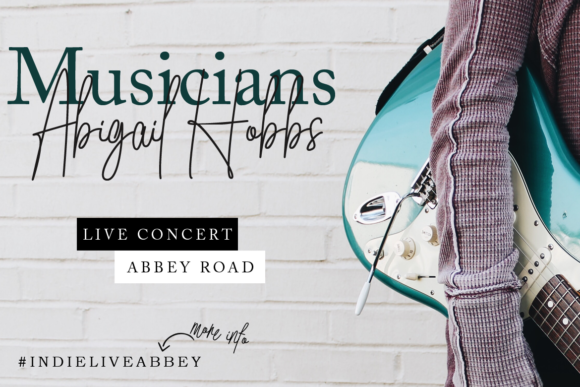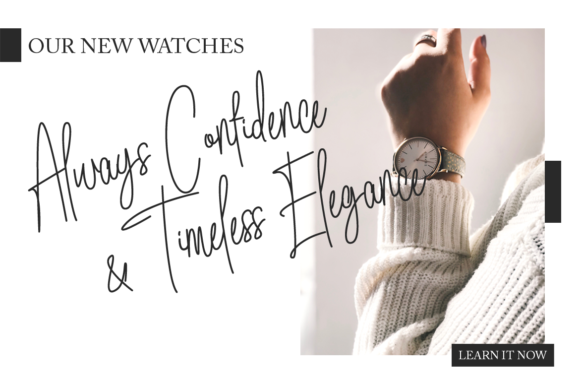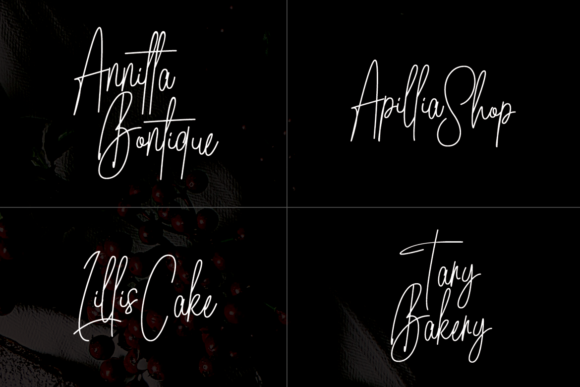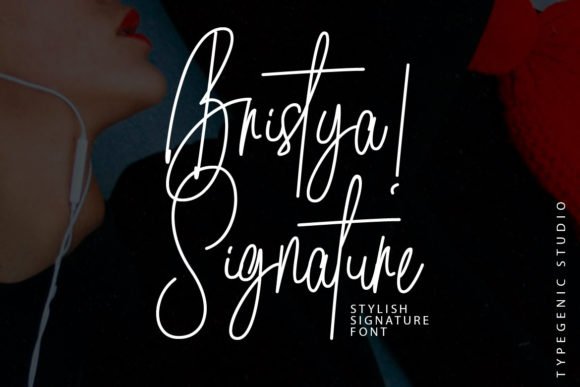
Introduction to Bristya Signature Font
Bristya Signature is a classy and elegant handwritten font.
It is perfect for logos, signatures, social media post, product packaging and any creative design .
Key Features of Bristya Signature Font
Why Choose Bristya Signature Font?
Bristya Signature Font offers exceptional quality and versatility, making it a valuable addition to your design toolkit. Whether you’re creating for personal projects or commercial use, Bristya Signature Font delivers professional results.